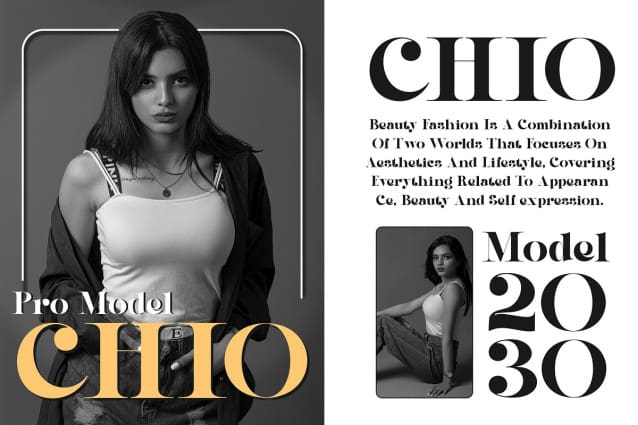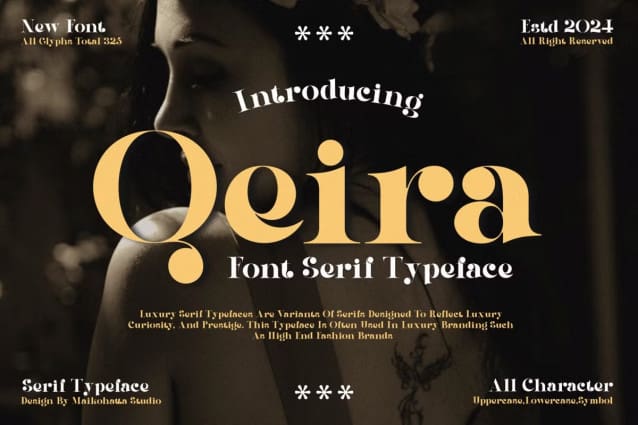
Qeira Font
Qeira Font – Elegant Serif Typeface. This font is a type of letter that has special characteristics that create the impression of luxury, elegance and firmness. This font involves a series of design elements such as balanced thin and thick lines, gentle curves, and elegant and clean serifs. The sharp corners and fine details of each character create a highly aesthetic impression and exude an air of elegance.